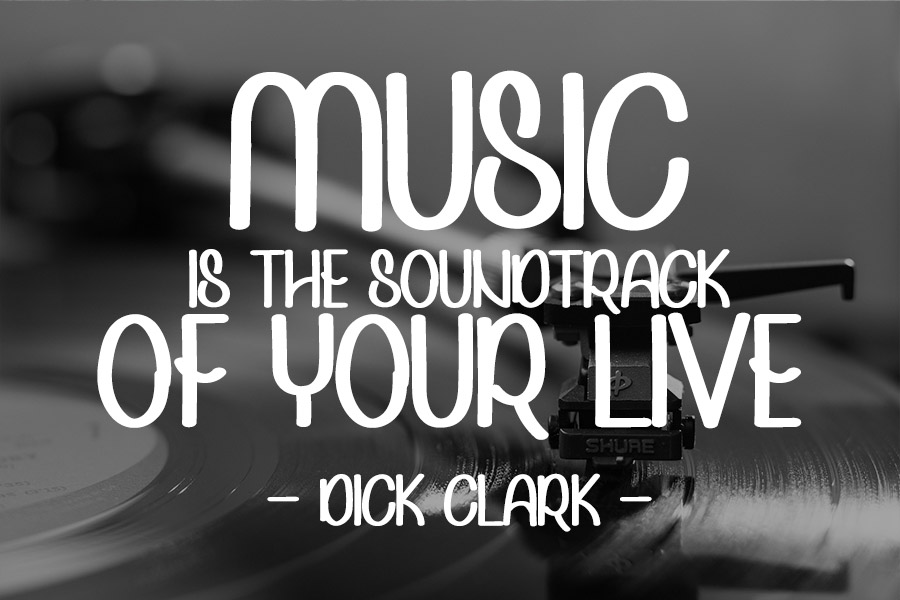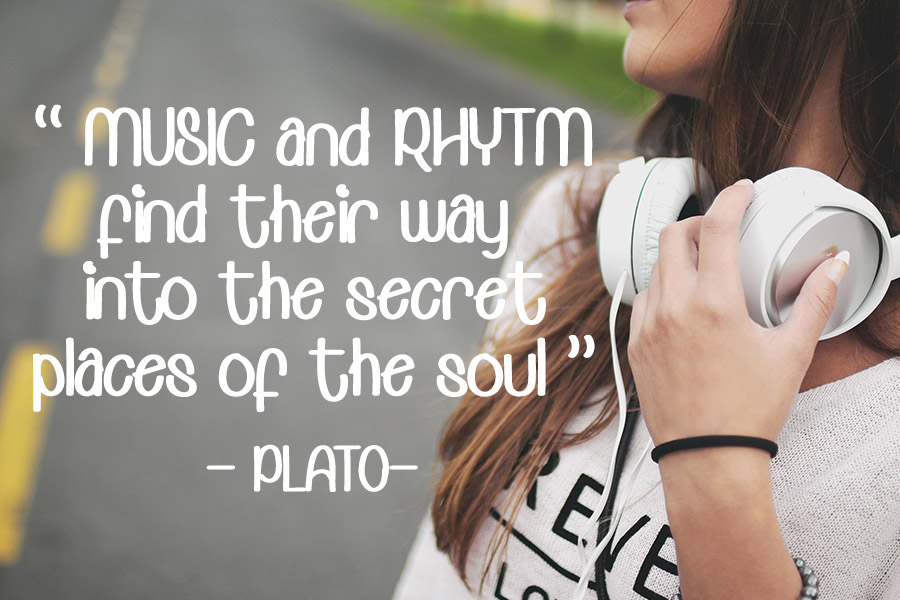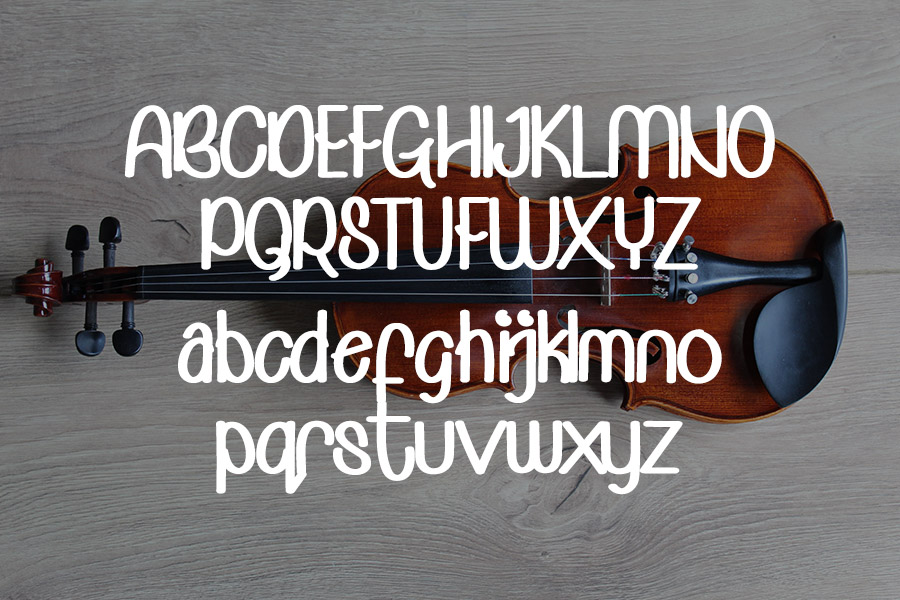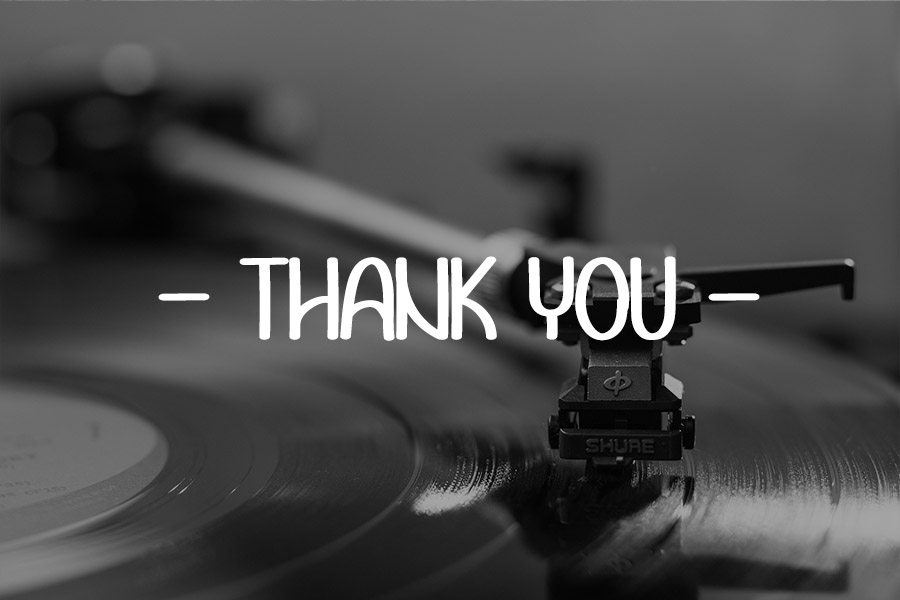
Musical Glorious Display Font
This is a thin and stylish display font. It is defined by smooth curves and is perfect for fashion branding or editorial designs. Add it confidently to your projects, and you will love the results.